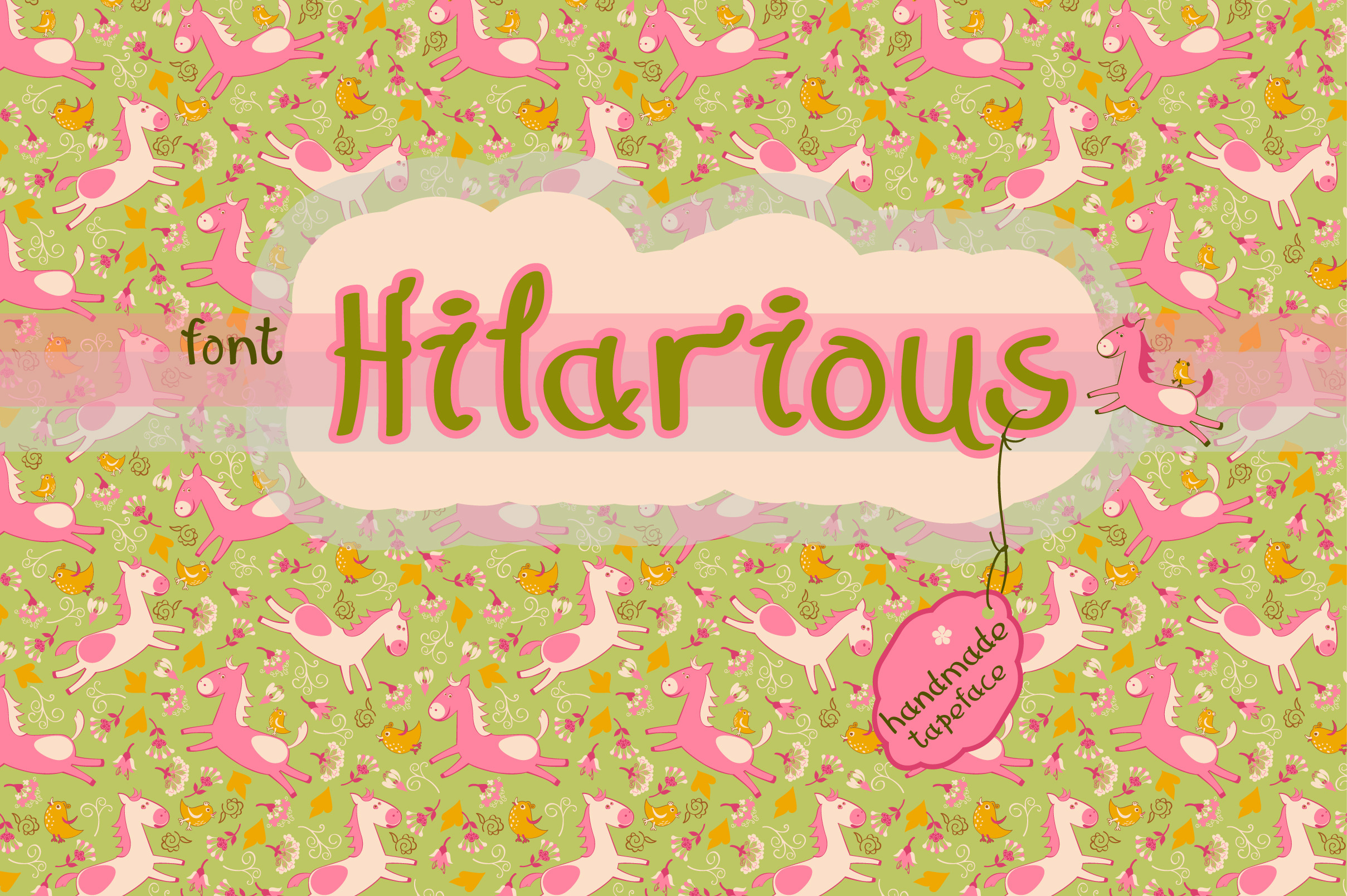
Hilarious font
Hilarious font - - cute rounded font. It has more than 150 glyphs. You can use it as a logo, badge, insignia, packaging, headline, poster, t-shirt/apparel, greeting card, and wedding invitation.
• Basic Latin A-Z and a-z
• Numbers
• Limited Symbols